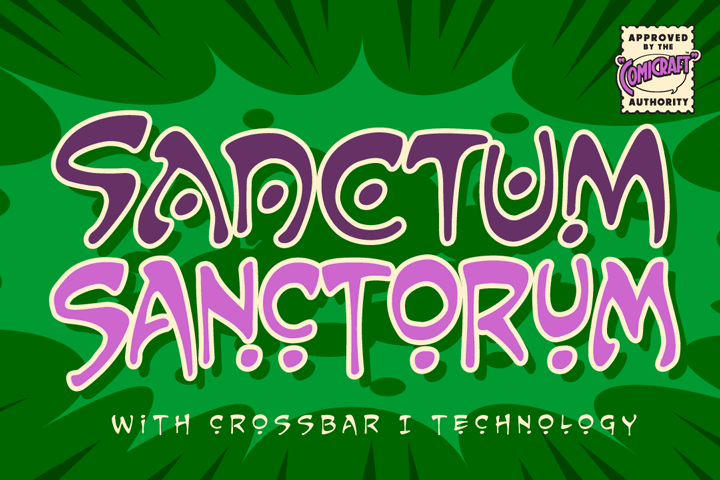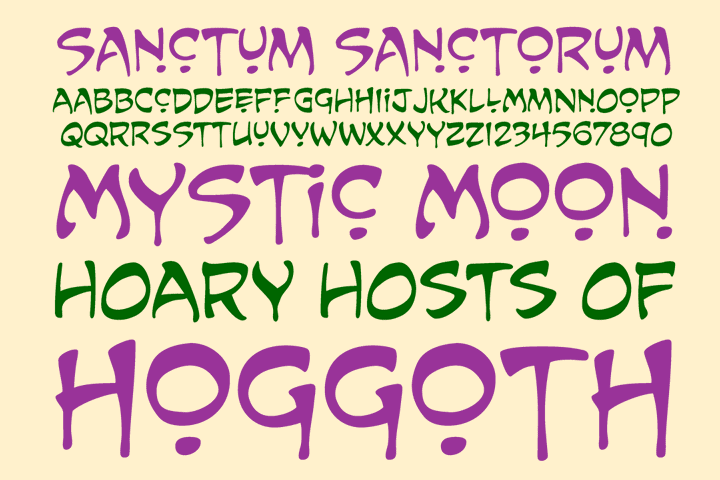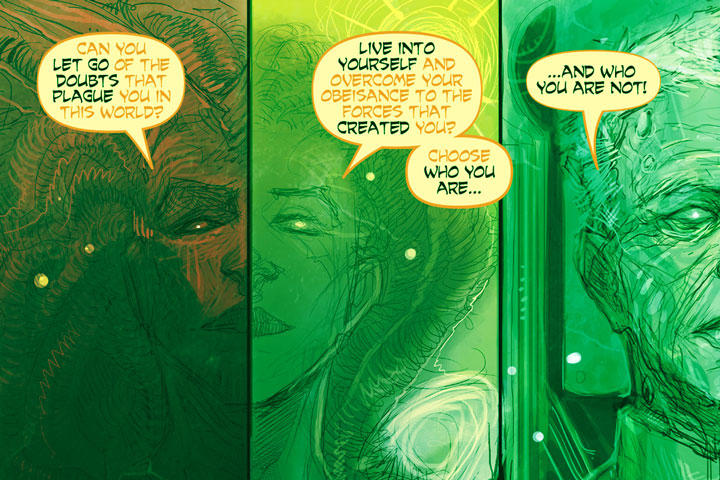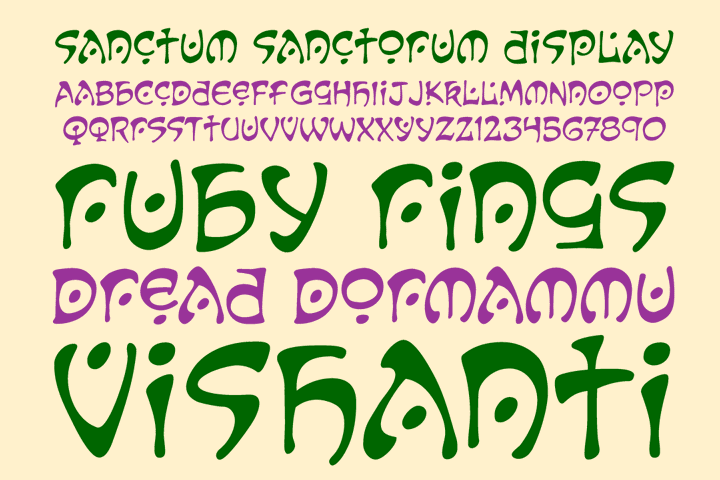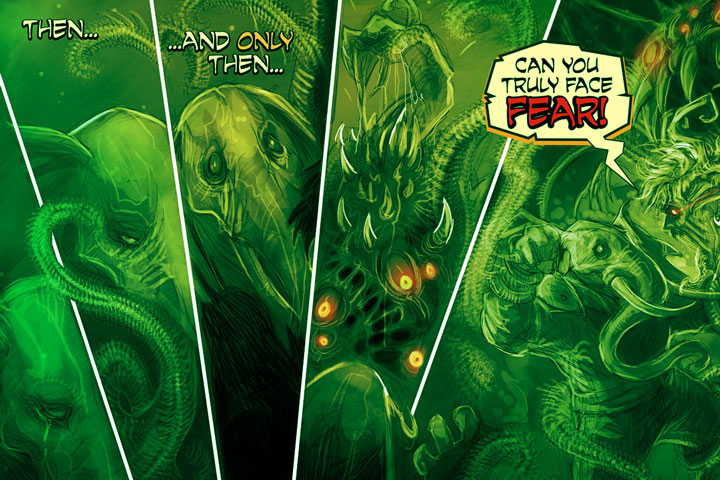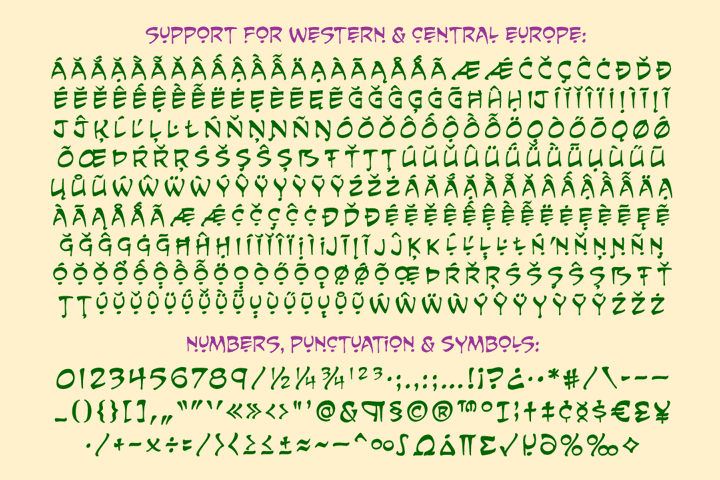
Sanctum Sanctorum
By the enchanted amulet of the all-seeing eye of Agamotto, by the Seven Moons of Munipoor and the beards of the eternal Vishanti, there are Strange Magicks in the Crimson Circles of Cyttorak that only a Sorcerer Supreme -- a Master of the Mystic Art Nouveau -- can comprehend.
Designed by John “Dormammu” Roshell for Doctor Strange's incantations in Smith/Quesada/Palmiotti era DAREDEVIL, it resurfaced as the voice of Doctor Alizarine in ELEPHANTMEN!
Two weights with alternate uppercase alphabets
Plus: Crossbar I Technology™